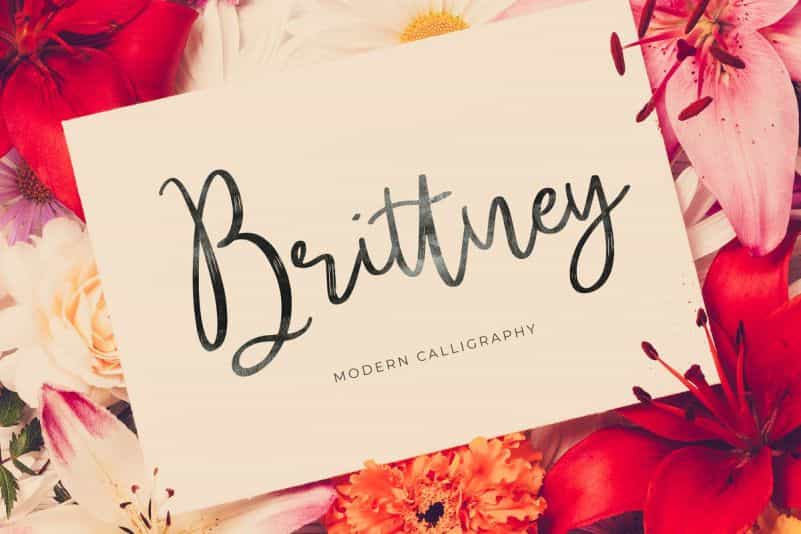
Brittney is a very beautiful and stylish font that is suitable for modern calligraphy. It’s the fusion between the aesthetics of calligraphy and the style of the new generation. Brittney design is suitable for branding projects, logo, wedding designs, social media posts, advertisements, product packaging, product designs, label, photography, watermark, invitation, stationery and any projects.